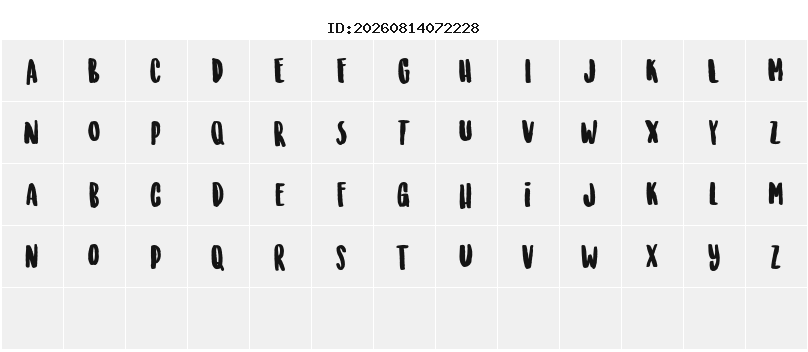
Sunrise International Demo Preview
• Font Name: Sunrise International Demo
• Designer: The Branded Quotes
About Sunrise International Demo.otf
Sunrise International Demo.otf is a modern, elegant sans-serif font designed for ultimate readability and visual harmony. Perfect for branding, headlines, web design, and print materials.